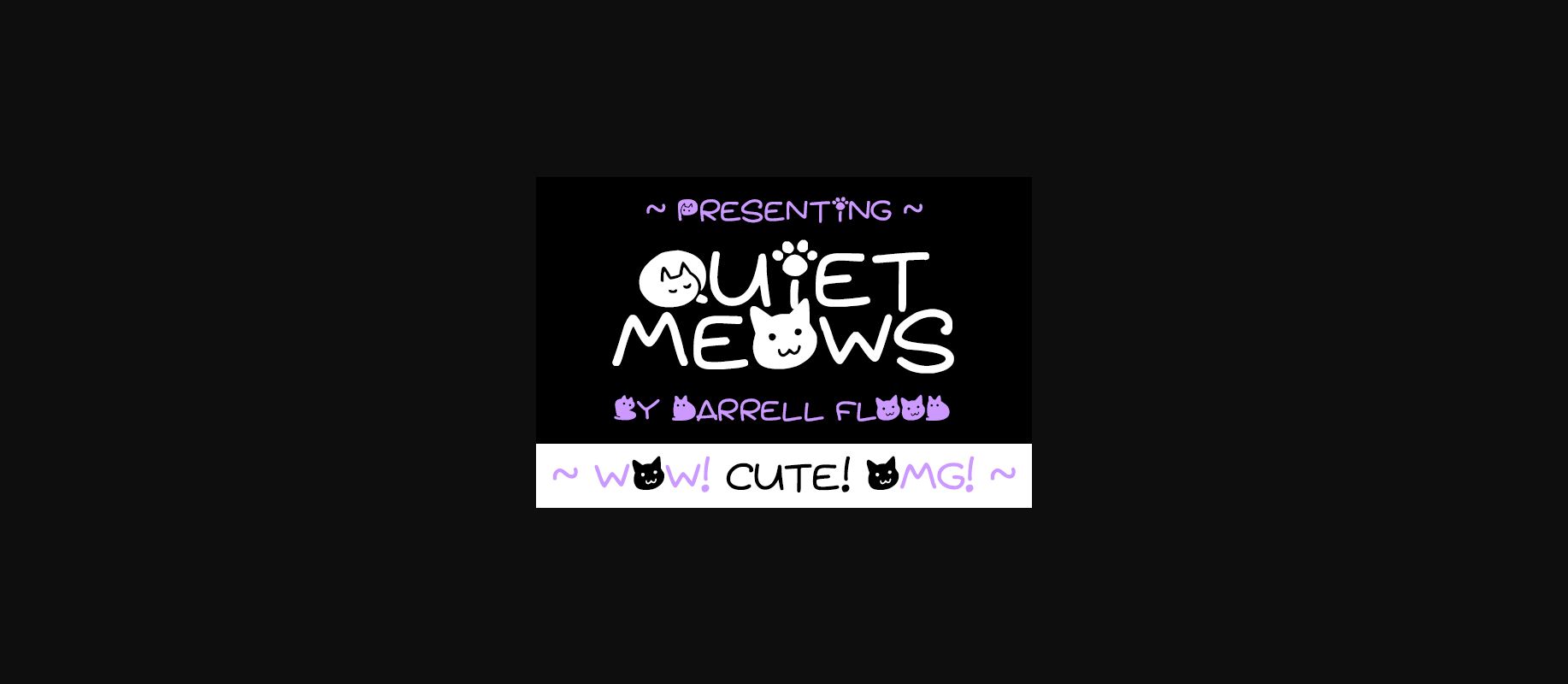
Quiet Meows Font
About Quiet Meows Font
Quiet Meows is a cute, fuzzy font with cats forming some of the letters! This is the perfect font for cat lovers and pet themes!